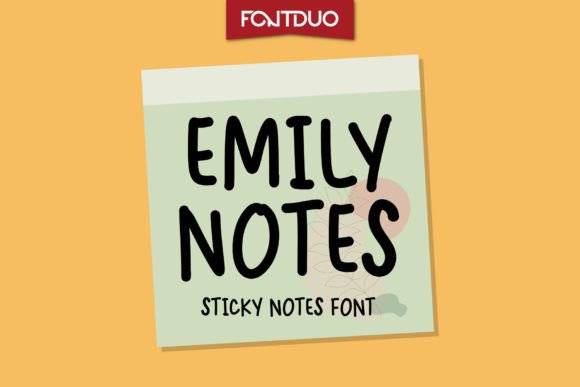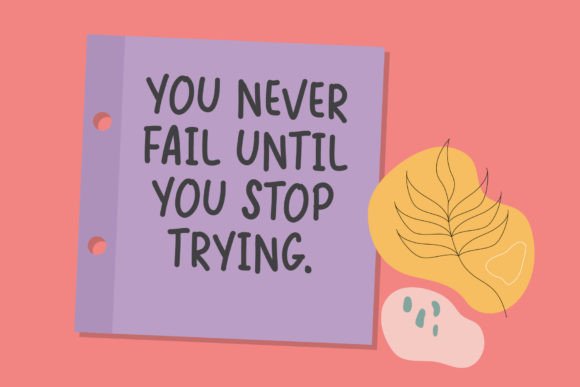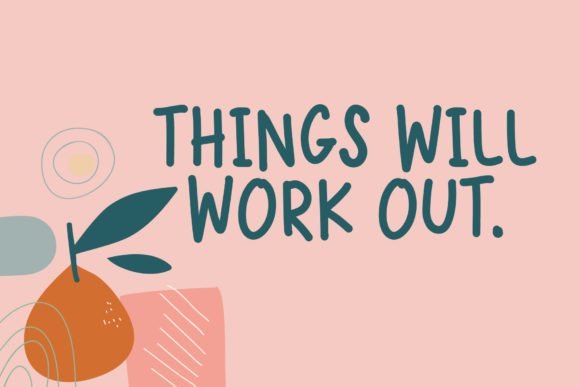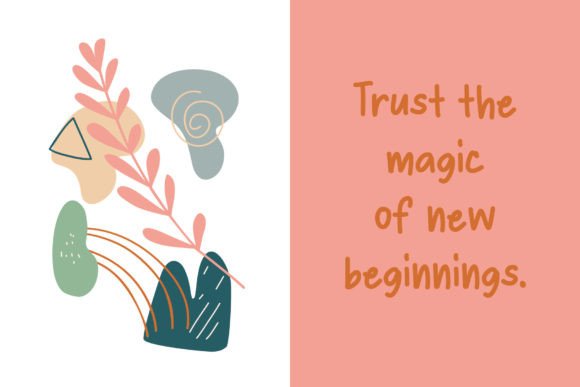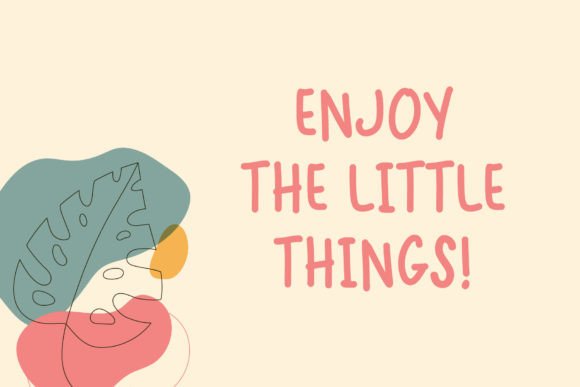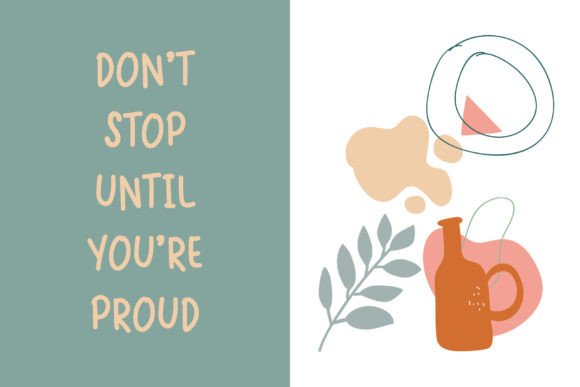
Emily Notes Font
A Sweet and Playful Script
Emily Notes is an adorable handwritten font that feels personal and warm. Each letter has a casual, friendly shape that makes your designs look approachable and fun. This font is perfect when you want to share a message that feels genuine and lighthearted.
The simple curves and clean lines give your text a fresh style. Whether you are working on personal notes or creative projects, Emily Notes brings a unique character that feels inviting.
Emily Notes is a versatile choice that works well for a variety of uses. It’s great for greeting cards, journals, planners, and scrapbook pages. You can also use it on social media graphics, blog headers, and product packaging.
This font includes uppercase and lowercase letters, numbers, and punctuation marks. It also offers ligatures that help your text flow naturally. These features give you everything you need to create layouts that feel polished and complete.
Clear and Easy to Read
Even though Emily Notes has a playful style, it stays clear and easy to read at any size. The consistent spacing and smooth shapes help your text look organized. This makes the font perfect for big headlines and small labels alike.
Many designers like to pair Emily Notes with clean sans-serif fonts. This combination adds contrast and keeps your layout looking balanced. Use Emily Notes for titles and the sans-serif for body text. This guides your reader’s eye and keeps everything clean.
Tips for Beautiful Results
To make the most of Emily Notes, use soft color palettes and light backgrounds. Pastel shades and neutral tones help highlight the font’s cute shapes.
If you’re designing for kids or crafts, try adding small doodles or icons. These details will create a playful look that matches the font’s personality. For more grown-up projects, keep your layout simple so the handwritten style can shine.
Think about the mood you want to share. Emily Notes is perfect for projects that should feel sweet, personal, and authentic.
A Must-Have for Your Font Collection
Emily Notes is more than just a cute script font. It’s a design tool that turns simple words into something memorable. Its friendly shapes and casual feel make every project look bright and approachable.
Adding Emily Notes to your font library means you’ll always have a reliable choice for any project that needs warmth. From greeting cards and journals to social media posts and branding, this font adapts with ease.